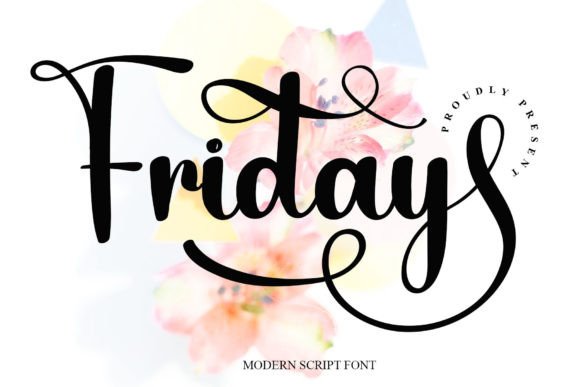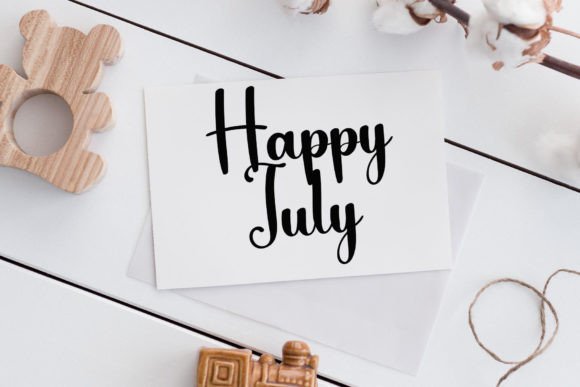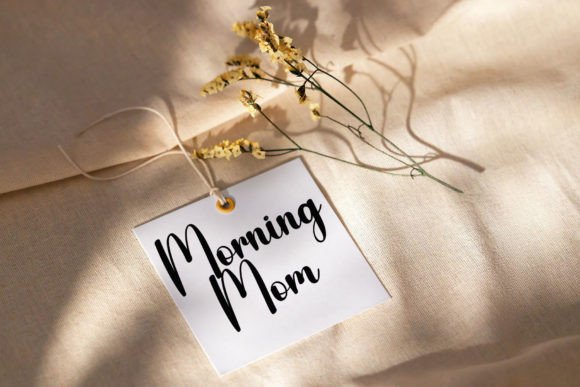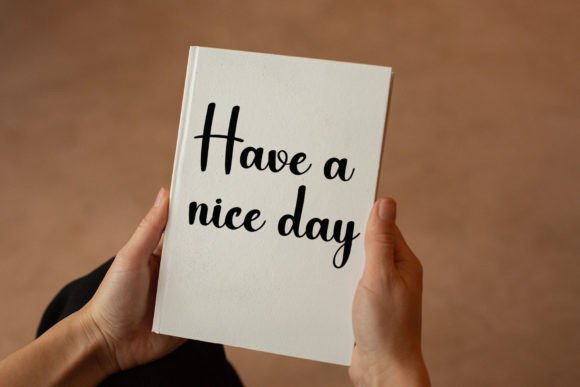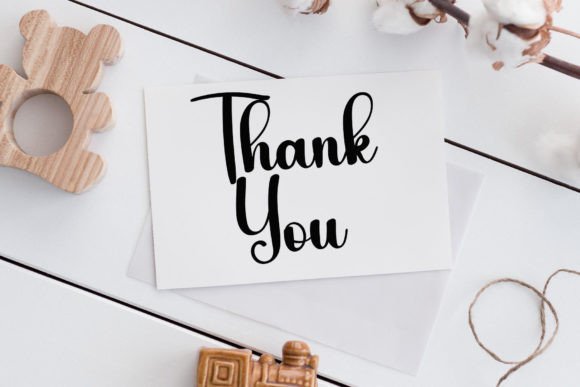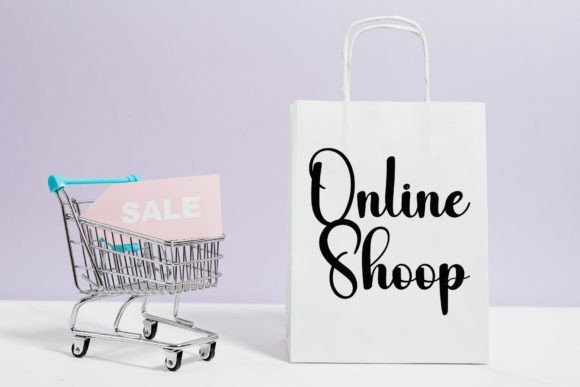
Friday Font
About Friday Font
“Friday” is a sweet and beautiful handwritten font that adds a delightful touch to your design projects. With characters that dance along the baseline, this font infuses a sense of playfulness and elegance, bringing a luxury spark to any creative endeavor.
The sweetness of “Friday” is evident in its carefully crafted characters. The handwritten style adds a personal and authentic touch, making it perfect for projects where a touch of charm and beauty is desired. Whether you’re working on invitations, branding, or other design materials, “Friday” brings a unique and sweet aesthetic.
The dancing characters along the baseline contribute to the font’s playful and dynamic nature. This feature not only adds visual interest but also enhances the overall liveliness of the design. “Friday” is designed to capture attention and bring a sense of luxury to your projects.
This font is versatile and can be applied to a variety of design contexts, allowing you to create stunning visuals for different purposes. Whether it’s for wedding invitations, luxury branding, or any other creative project, “Friday” ensures that your designs stand out with a touch of sweetness and sophistication.
In summary, “Friday” is more than just a font; it’s a sweet and beautiful design tool that brings a luxury spark to your projects. With its dancing characters and charming handwritten style, this font adds a unique and elegant flair to any design, making “Friday” a delightful choice for a range of creative endeavors.